When thinking about current Christmas design, think simple. Clean lines, a minimalist style, and Scandinavian fonts create a polished look. Whether you’re making Christmas cards in Canva, creating a brand for holiday promotions, or designing festive packaging, the right font choice can make your designs stand out.
This Fontiverse collection focuses on current Christmas fonts, simple holiday typefaces, winter sans serifs, and modern script fonts perfect for digital design. Using Fontiverse semantic clusters—modern holiday typography, Christmas sans serif, Scandinavian Christmas fonts, festive fonts, lettering, and trendy holiday display fonts—this guide is a valuable resource for designers wanting fresh, seasonal styles.
Below are some Creative Fabrica fonts that work well with Canva’s layout tools, making sure your projects are current and ready for the holidays.
1. Nordic Christmas Font
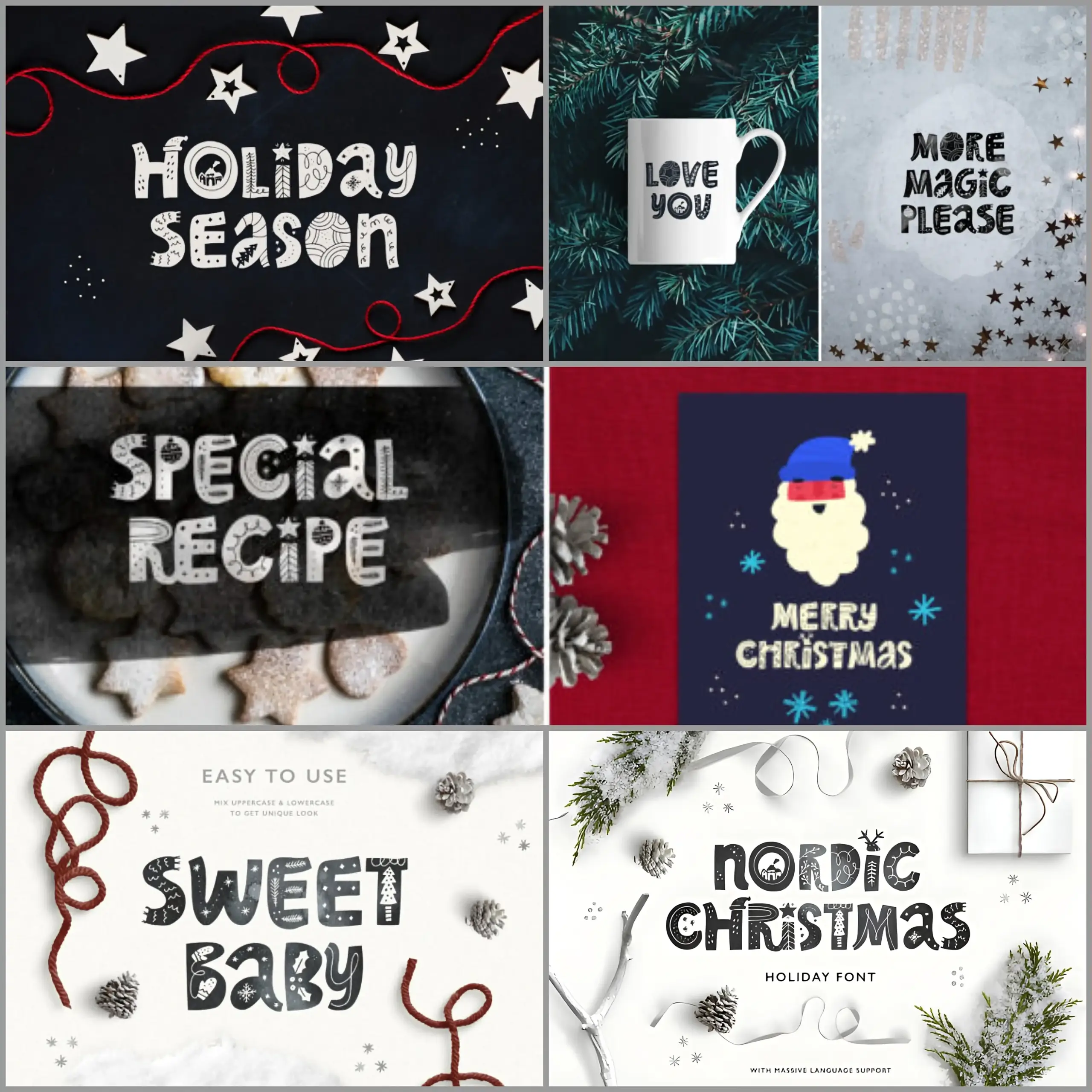
Christmas Nordic Font is a warm, joyful nordic display font inspired by Scandinavian winter aesthetics, hygge charm, and hand-drawn holiday doodles. Designed for creators who love playful details, this christmas hand-drawn font includes charming illustrations like stars, fir trees, snowflakes, reindeer, Santa icons, garlands, gift boxes, cozy drinks, and more—perfect for expressive festive typography.
The font package includes Regular Uppercase, Regular Lowercase, and Bold variations. In the regular version, uppercase and lowercase characters differ to give your text a natural handmade look. The bold style, without inner doodles, provides a cleaner, impactful winter display typeface for titles and statements. Each style is mapped to standard keyboard keys, so no extra software is required—just install, type, and create.
Ideal for kids’ book titles, scrapbooking, holiday cards, gift tags, winter quotes, Pinterest graphics, Instagram posts, branding, and seasonal packaging, this decorative doodle font brings personality to every project. It’s especially loved by designers working with Scandinavian crafts, Nordic holiday themes, and cozy winter storytelling.
Whether you’re building a festive logo, crafting printables, designing shop signage, or creating family holiday albums, Christmas Nordic Font delivers expressive, festive display typography that feels handmade, warm, and full of seasonal spirit. Download instantly and enjoy a delightful winter lettering experience across all devices and design software.
2. Winter Joy – Smooth Modern Script
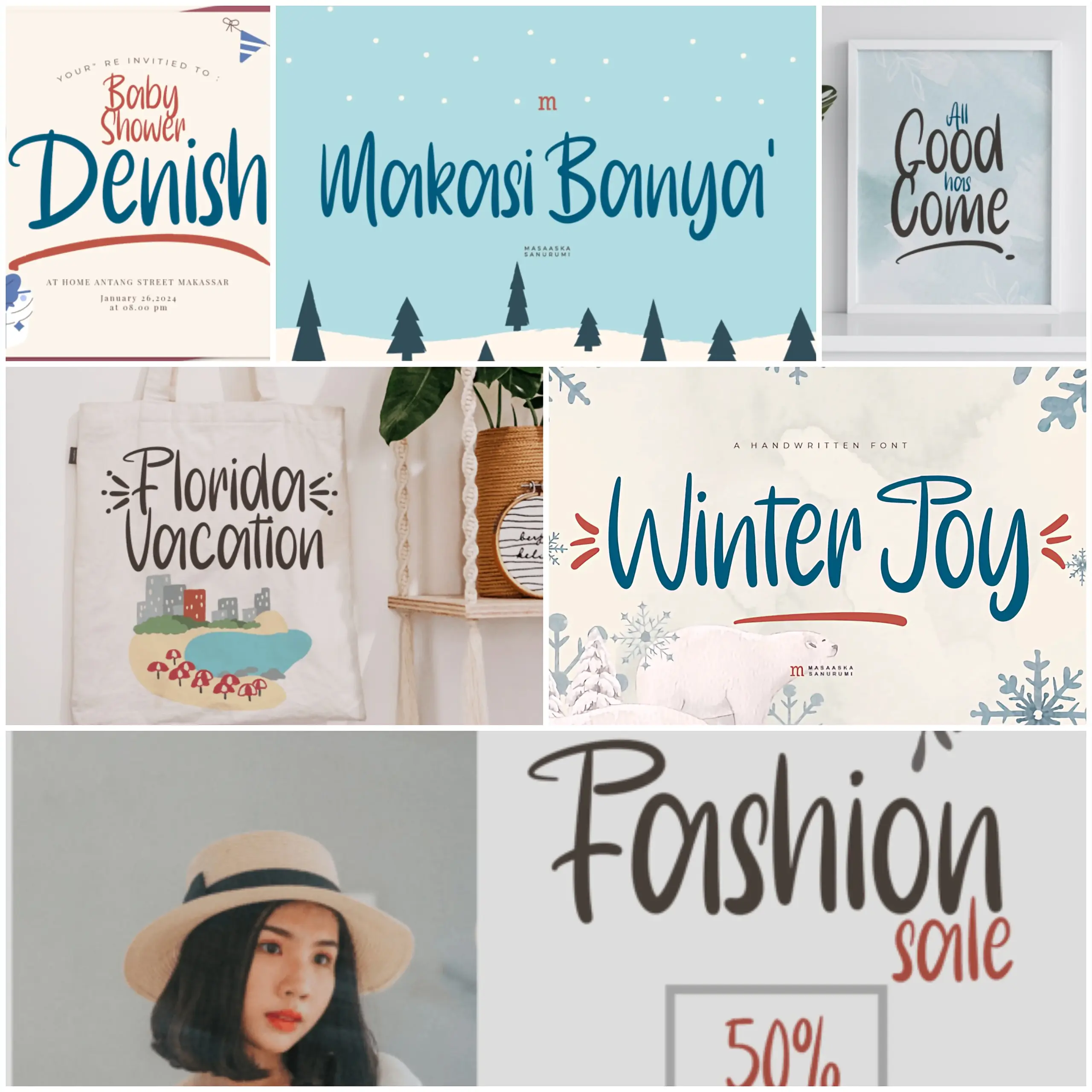
Winter Joy combines the grace of current script fonts with the comfortable feel of holiday handwriting. Its even lines, balanced curves, and neat, current style make it great for holiday lettering. Unlike older calligraphy fonts, Winter Joy has a simple, clear look that works well for current Christmas branding, product labels, gift tags, and Canva card designs. It feels festive but not too fancy, which is great for today’s Christmas designs.
3. Frosty Spark Font – Clean Festive Display
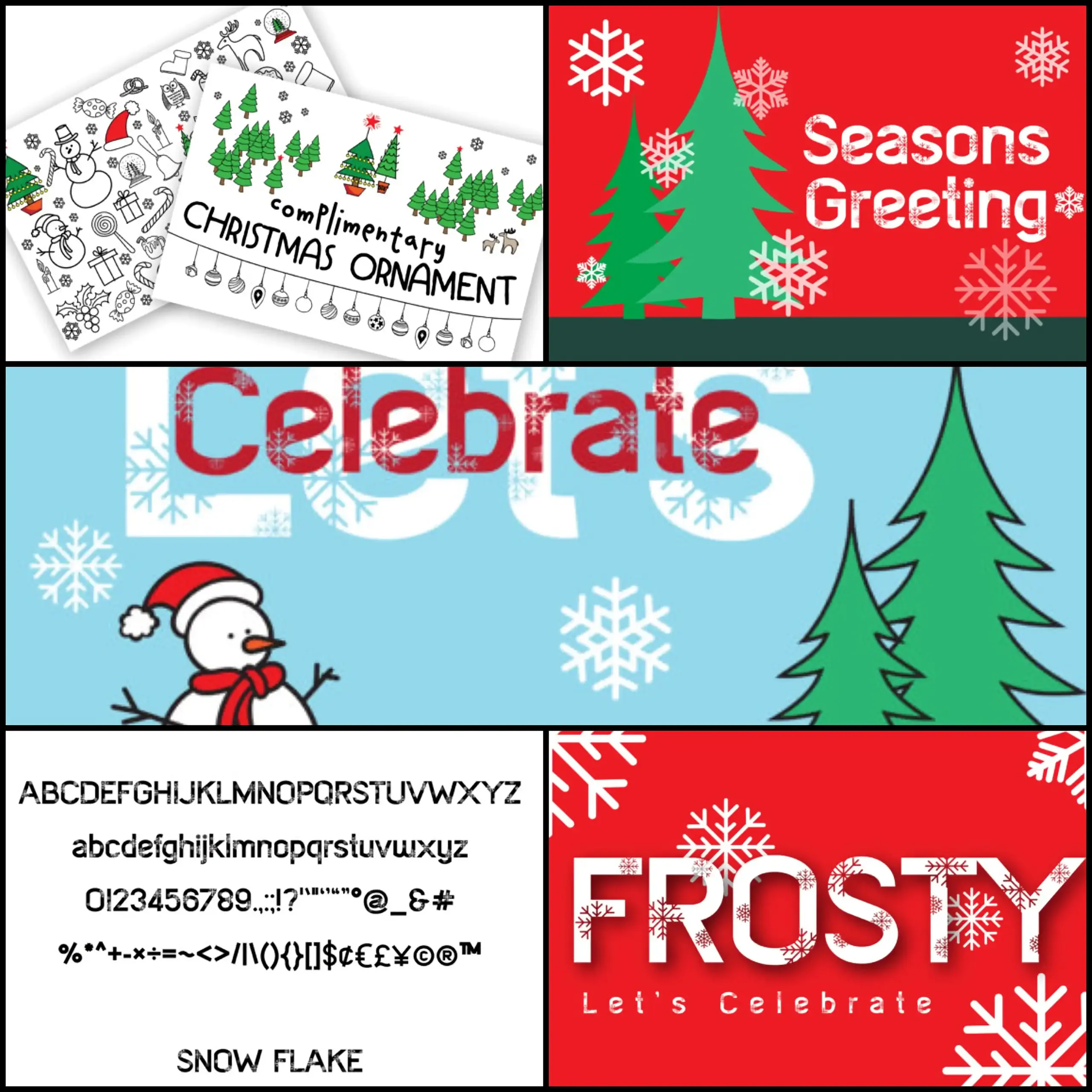
Frosty Spark is a display font with simple shapes and a hint of holiday spirit, made to give a fresh feel to Christmas designs. Its sharp angles and geometric style make it a good fit for current seasonal work, such as strong poster titles, gift wrap designs, and holiday marketing images. Designers in search of current Christmas fonts that still have character will appreciate how Frosty Spark mixes clean lines with a festive touch.